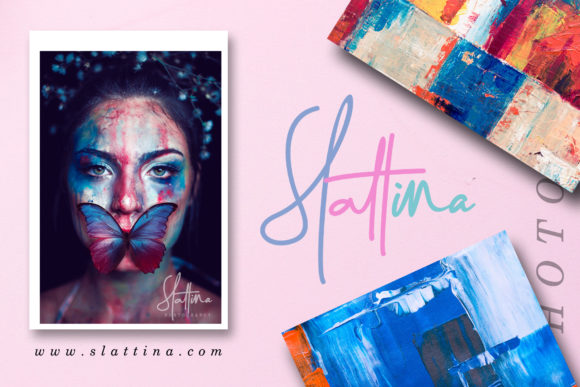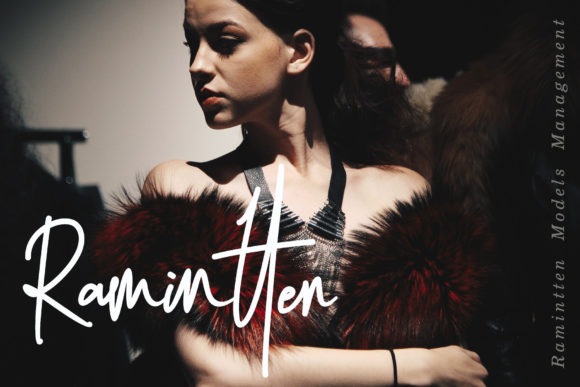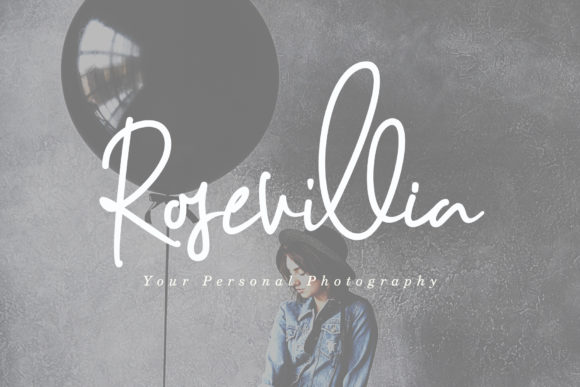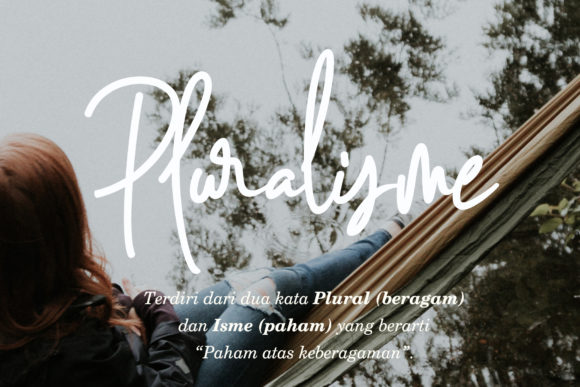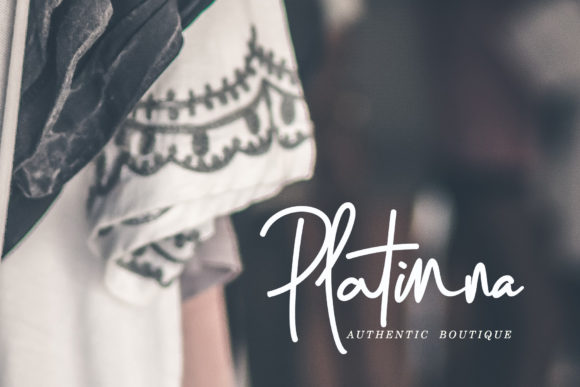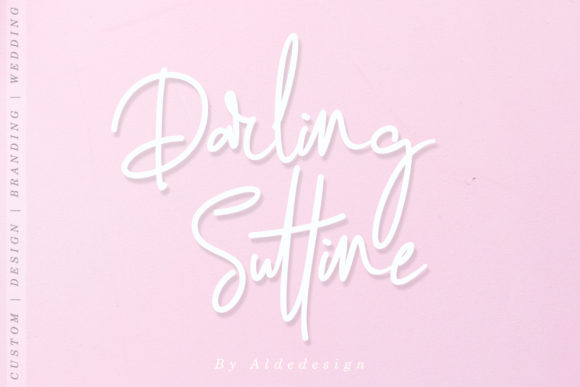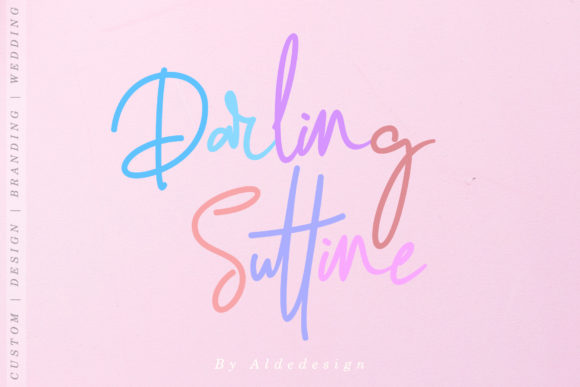
Discover the Elegance of Darling Suttine Font: Elevate Your Designs with Sophistication
In the realm of typography, few fonts manage to strike a balance between natural elegance and classy sophistication. The Darling Suttine font is one such exceptional find that has captured the hearts of designers and crafters alike. With its unique blend of organic charm and refined aesthetics, Darling Suttine has become a go-to choice for a wide array of design projects. In this article, we’ll delve into the characteristics that make Darling Suttine a standout font and explore its versatility in various applications.
The Essence of Darling Suttine Font
The Darling Suttine font boasts an awesome and classy feel that instantly elevates any design. Its natural yet elegant touch makes it perfect for projects where a personal and sophisticated look is desired. Whether you’re working on branding materials, wedding stationery, photography projects, or any other creative endeavor, Darling Suttine promises to add a touch of class and refinement.
One of the key advantages of the Darling Suttine font is its incredible versatility. It’s a font that can seamlessly transition across various design projects, making it an invaluable asset in any designer’s toolkit. Here are some of the areas where Darling Suttine truly shines:
- Watermarks on Branding: Adding a professional and elegant watermark to your brand’s products or marketing materials can significantly enhance their appeal. Darling Suttine, with its classy feel, serves as an excellent choice for creating watermarks that are both subtle and sophisticated.
- Wedding Stationery: For wedding invitations, save-the-date cards, or thank-you notes, Darling Suttine offers the perfect blend of romance and elegance. Its natural and refined look ensures that your wedding stationery stands out with a touch of personal sophistication.
- Photography: Photographers looking to add a signature touch to their work can use Darling Suttine for watermarks or overlay text. The font’s elegant feel complements visual content beautifully, adding a professional finish to photographs.
- Signatures: Whether you’re looking to personalize your email signature or add a professional touch to your documents, Darling Suttine provides an effortlessly classy solution.
- Logo Designs: For businesses aiming for a sophisticated brand image, Darling Suttine can be a valuable asset in logo design. Its unique feel can help create memorable and impactful logos.
- Album Covers: Music artists and producers can leverage Darling Suttine to create album covers that exude a sense of elegance and class. The font’s natural yet refined aesthetic can significantly enhance the visual appeal of music releases.
- Business Cards: Making a good impression with business cards is crucial, and typography plays a significant role in this. Darling Suttine helps in creating business cards that are not only visually appealing but also reflect a professional and classy image.
- Quotes: For designers and social media influencers looking to share inspirational quotes or personal messages, Darling Suttine offers a stylish and elegant way to present text. Its readability and aesthetic appeal make quotes stand out on any background.
Why Designers and Crafters Love Darling Suttine
The love for Darling Suttine among designers and crafters can be attributed to its ease of use and the professional look it lends to any project. The font’s flexibility allows for a wide range of applications, from digital designs to print materials. Moreover, its timeless elegance ensures that designs remain stylish and relevant over time, avoiding the quickly outdated look that some fonts may have.
| Font Name | Darling Suttine Font |
| Author | aldedesign |
Darling Suttine font is more than just a typographical choice; it’s a design statement. Its blend of natural elegance and classy sophistication makes it an ideal choice for designers and crafters looking to elevate their projects. Whether you’re working on a branding campaign, wedding stationery, or any other creative project, Darling Suttine promises to bring a level of refinement and professionalism that’s hard to match. With its versatility and timeless appeal, Darling Suttine is set to remain a beloved font in the design community for years to come.